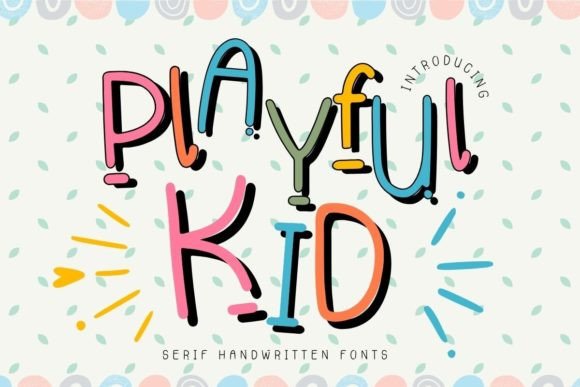
Unleash the magic of Playful Kid, a captivating display font that dances with charm and exuberance. Inspired by the innocent joy of childhood, this font will infuse your designs with a sense of wonder and delight.
With its groovy and fun vibe, Playful Kid is the perfect choice for heartwarming projects that demand a touch of whimsy. Its playful curves and enchanting details will make your designs shine, whether it's for angel-themed creations, kids' designs, birthday invitations, summer vibes, t-shirt designs, crafting, stickers, or sublimation.
Step into a world of imagination and creativity with Playful Kid, where your designs take flight on the wings of joy. Its unique style will capture hearts and leave a lasting impression, making your projects stand out from the ordinary.
Let Playful Kid ignite your passion for design and let your creations bloom with happiness. Embrace the magic of this font and watch as it transforms your designs into enchanting expressions of joy and delight.